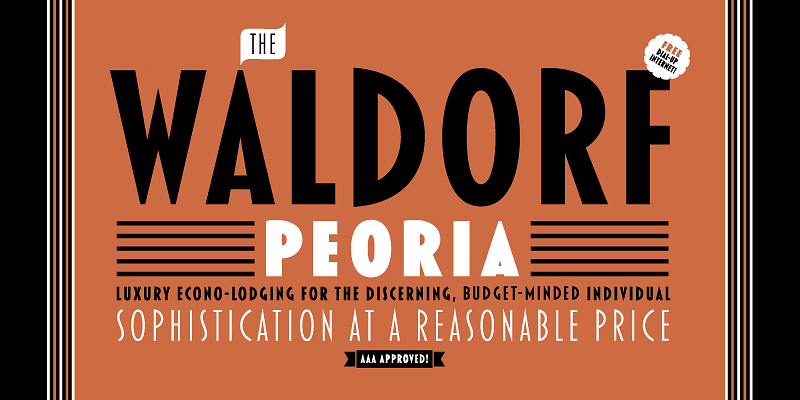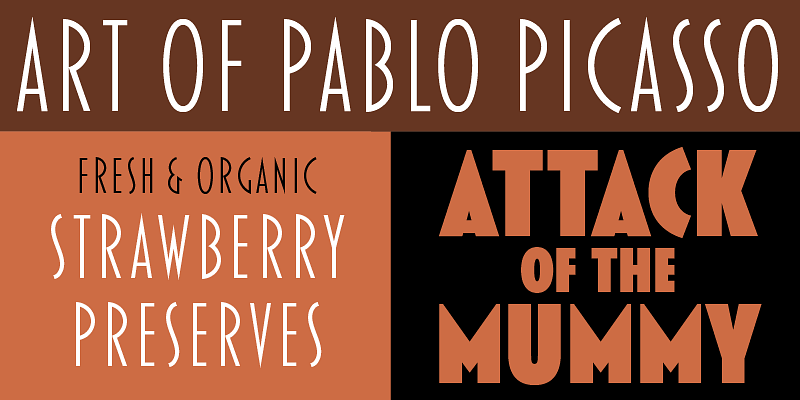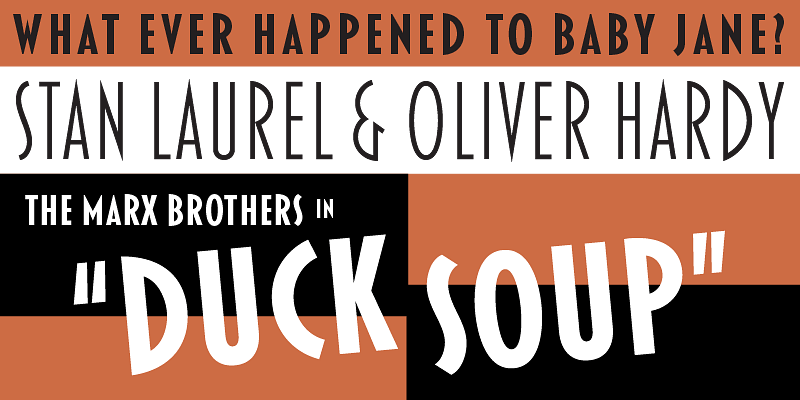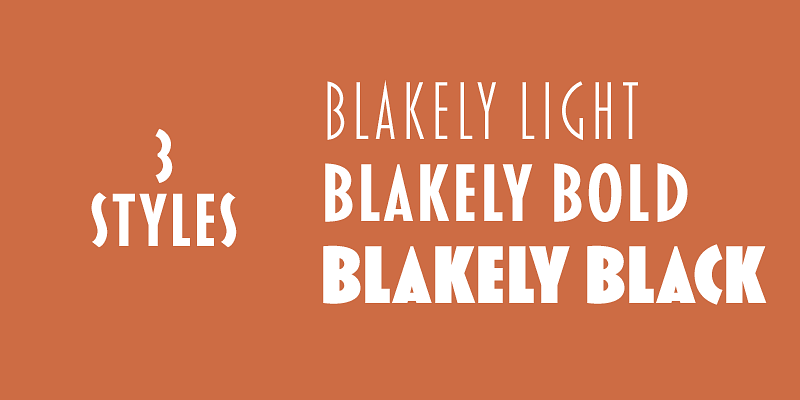
Blakely (2000, 2003) was originally developed as a custom font based on a logo I designed in the early ’90s for the Signals mail order gift catalog. It’s a condensed, sans serif Art Deco design, similar in some ways to Kabel Condensed and Newport, both from around 1930. It’s a caps-only design, and the spacing is optimized for all-caps settings, nearly letter-spaced in the Light weight. I added the Bold and Black weights in 2003, which were in the back of my mind from the beginning.